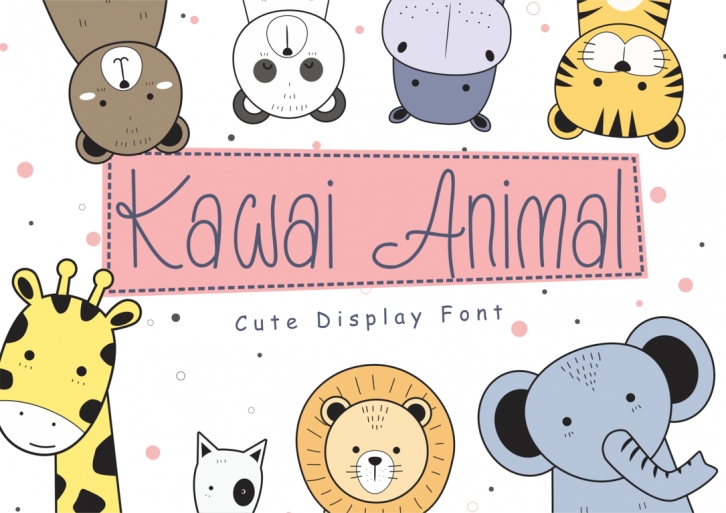
Kawai Animal is a cute and thin lettered handwritten font that can be used for all chalkboard quotes or teaching material! Its authentic look will add a personal and realistic feel to your designs.